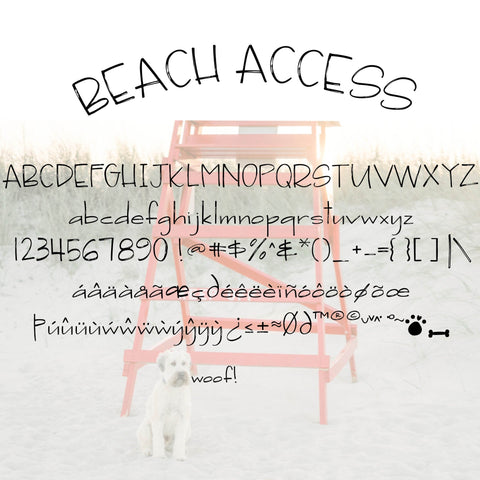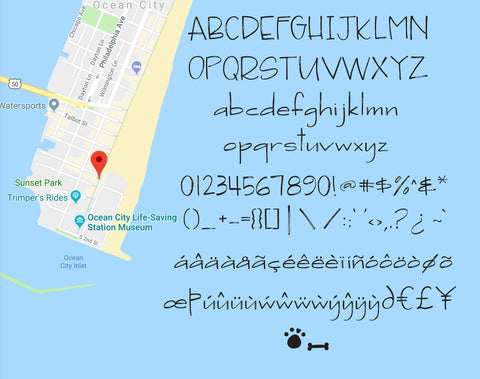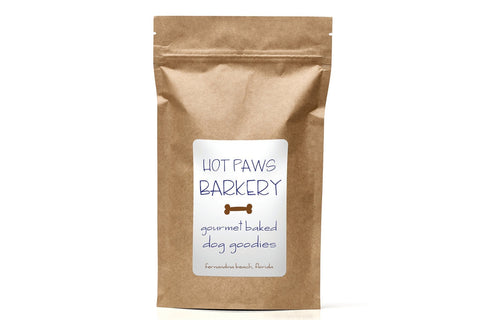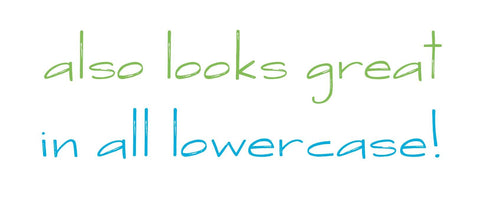
"Beach Access" Hand Lettered Font
A Fun and Minimalistic Hand Lettered Font
This is a sweet and versatile handwritten font that’s great for content, signage, sketching and just about anything you can think of. It's perfect when used for stationery, invitations and printed material.
- Uppercase A-Z
- Lowercase a-z
- Numbers 0-9
- Standard punctuation
- A variety of alternates and ligatures
- Multilingual support